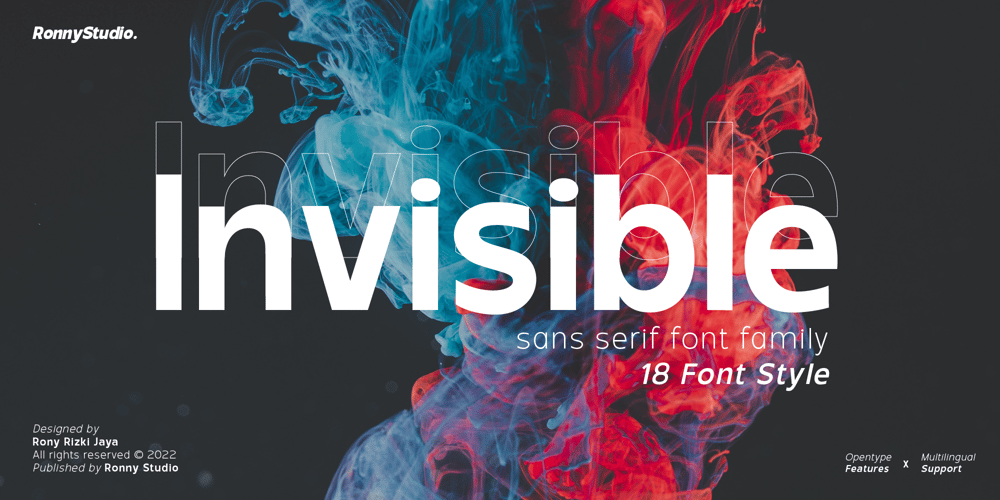
Invisible Font Family was designed by Rony Rizki Jaya and published by Ronny Studio. Invisible contains 18 styles and family package options. Invisible is a geometric sans serif font family. Contains 9 weights with Regular and Family Look from Thin to Black and matching Slanted style. Invisible Normal character shapes have optimized proportions and improved balance perfect for use for text and heavyweights have strong characters have a unique style with smooth shapes to work with any look. Invisible fonts can be enhanced and used for any display medium to support your visual designs.Please contact us if you have any questions. Enjoy Crafting and thanks for supporting us! :)Thank you____________________________________________________________________________________Language Support : Afrikaans, Albanian, Asu, Basque, Bemba, Bena, Breton, Catalan, Chiga, Colognian, Cornish, Croatian, Czech, Danish, Dutch, Embu, English, Esperanto, Estonian, Faroese, Filipino, Finnish, French, Friulian, Galician, German, Gusii, Hungarian, Indonesian, Irish, Italian, Kabuverdianu, Kalaallisut, Kalenjin, Kamba, Kikuyu, Kinyarwanda, Latvian, Lithuanian, Lower Sorbian, Luo, Luxembourgish, Luyia, Machame, Makhuwa-Meetto, Makonde, Malagasy, Maltese, ManxMeru, Morisyen, North Ndebele, Norwegian Bokmål, Norwegian Nynorsk, Nyankole, OromoPolish, Portuguese, Quechua, Romanian, Romansh, Rombo, Rundi, Rwa, Samburu, Sango, Sangu, Scottish Gaelic, Sena, Serbian, Shambala, Shona, Slovak, Soga, Somali, Spanish, Swahili, Swedish, Swiss-German, Taita, Teso, Turkish, Upper Sorbian, Uzbek (Latin), Volapük, Vunjo, Walser, Zulu.